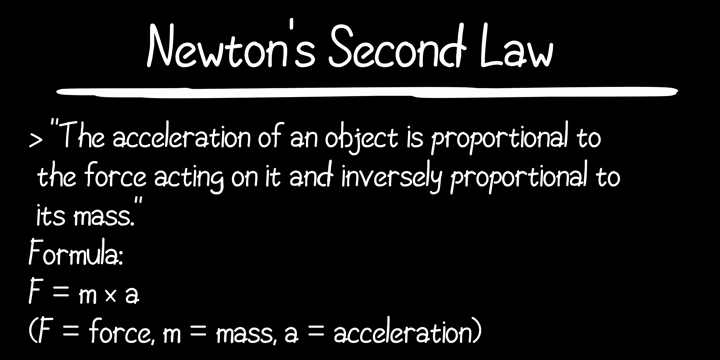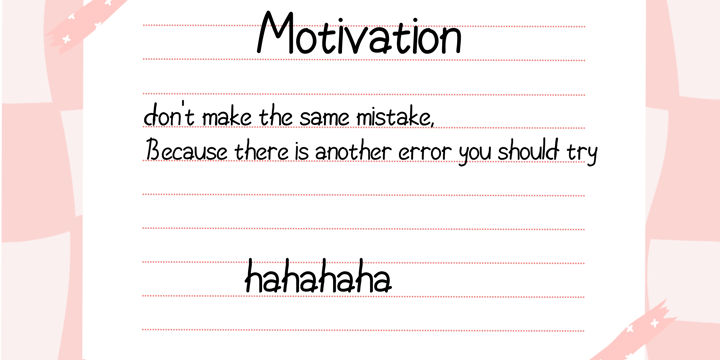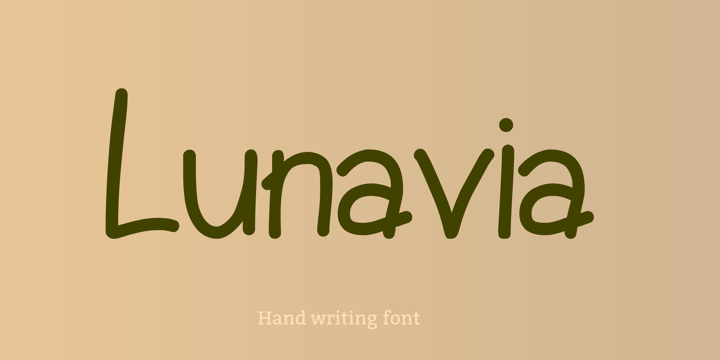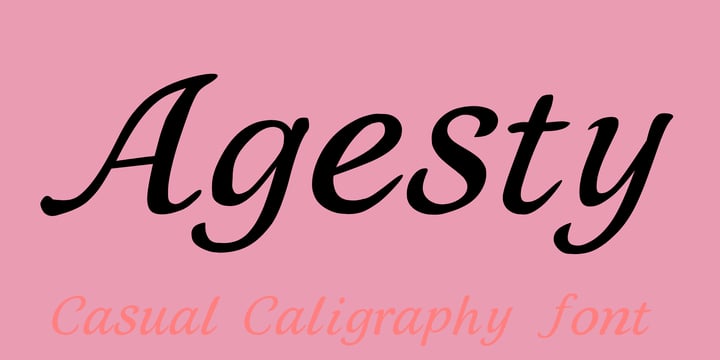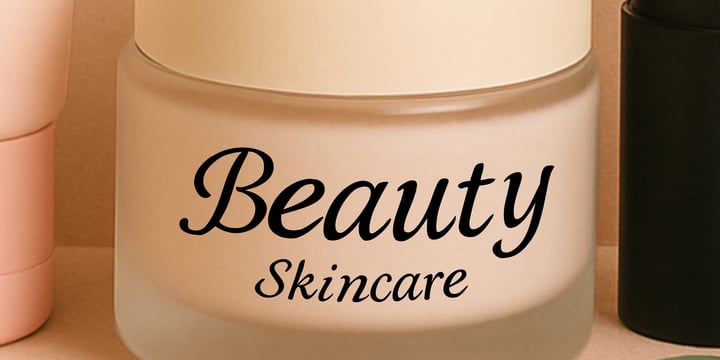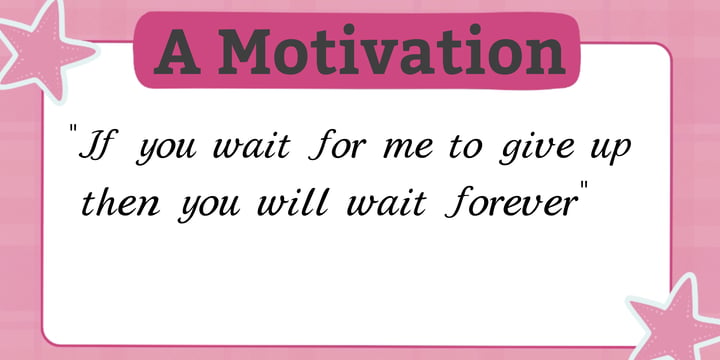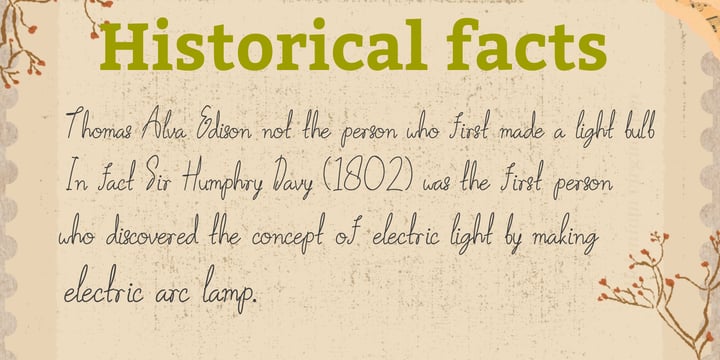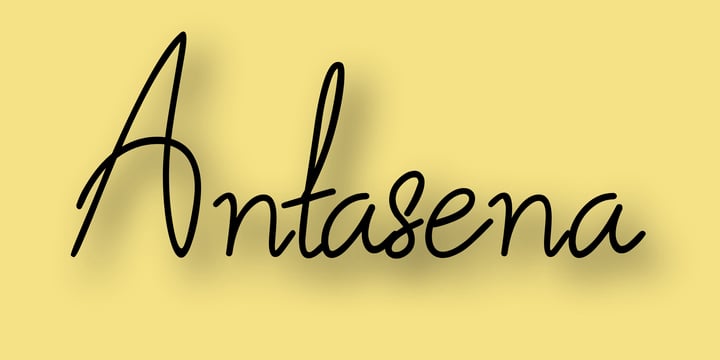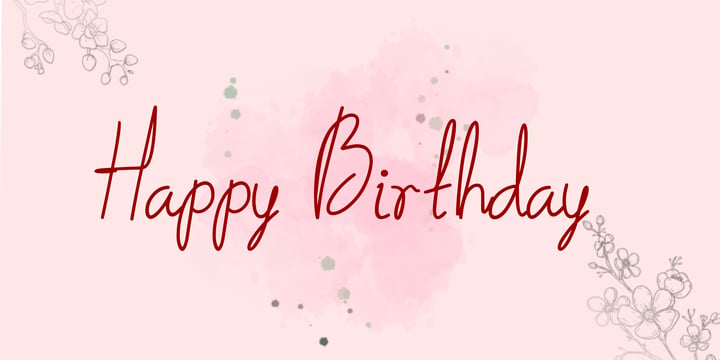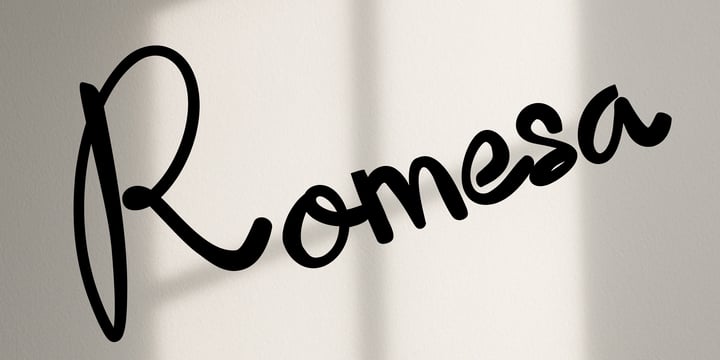
Erick Rismawan is an independent type designer and graphic artist based in Indonesia. As the founder of Eroane Creative, he focuses on developing unique fonts rooted in expressive handwriting, while also exploring a wide range of typographic styles — from minimalist sans-serifs to bold display fonts.
With a strong background in graphic design, Erick is also known for his detailed and versatile icon design work